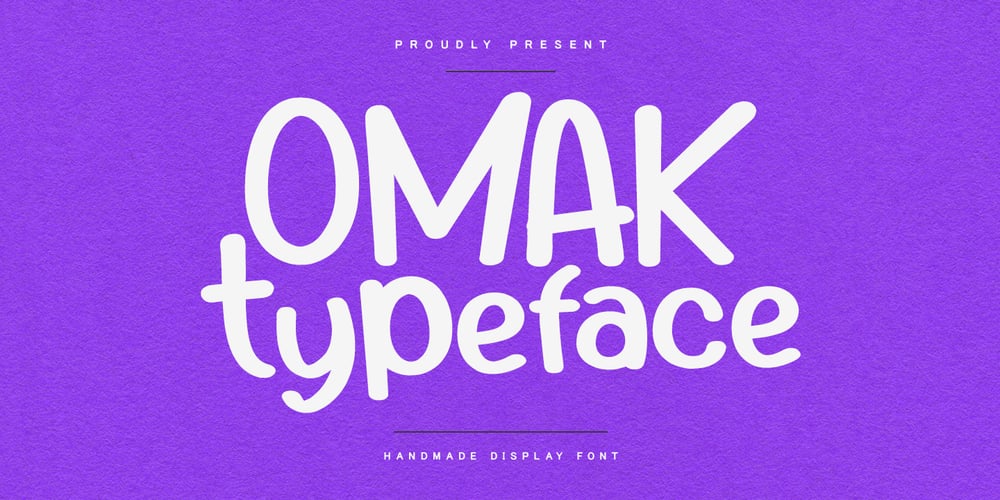
MC Omak Font Family was designed by Gilang Maulana and published by Maulana Creative. MC Omak contains 1 styles and family package options. Omak handmade display font, fun character with ligatures. To give you an extra creative work. Omak handmade display font support multilingual language.Many Thanks,Maulana Creative